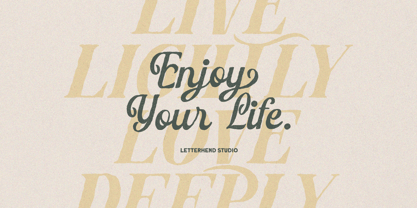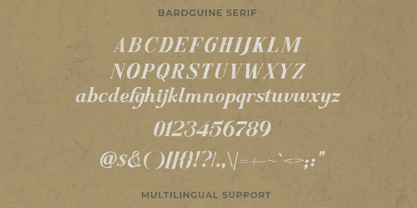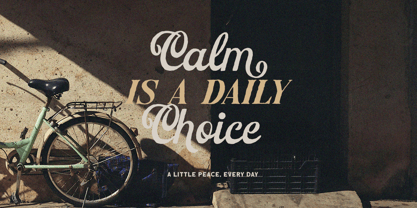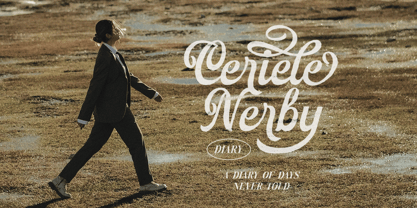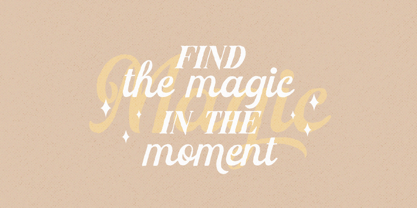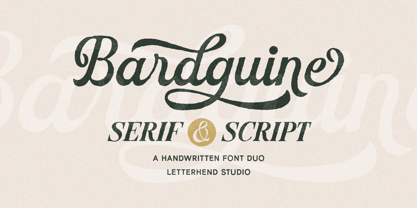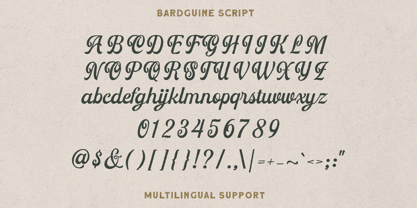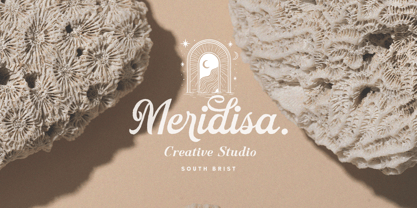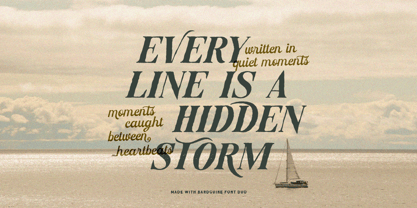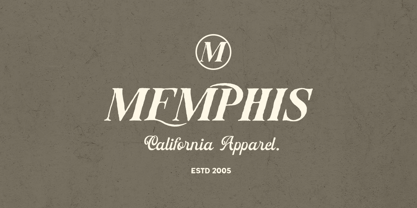
Bardguine
by Letterhend
The Bardguine Font Family was designed by Hendry Juanda and published by Letterhend. Bardguine contains 2 styles and family package options.
Bardguine Complete Family
Bardguine is a charming handwritten font duo that combines the elegance of a flowing script with the timeless strength of a classic serif. Designed to work beautifully together, this pair lets you mix playful curves with bold, confident lettering in one cohesive look.
• Uppercase & lowercase
• Numbers and punctuation
• Multilingual Support